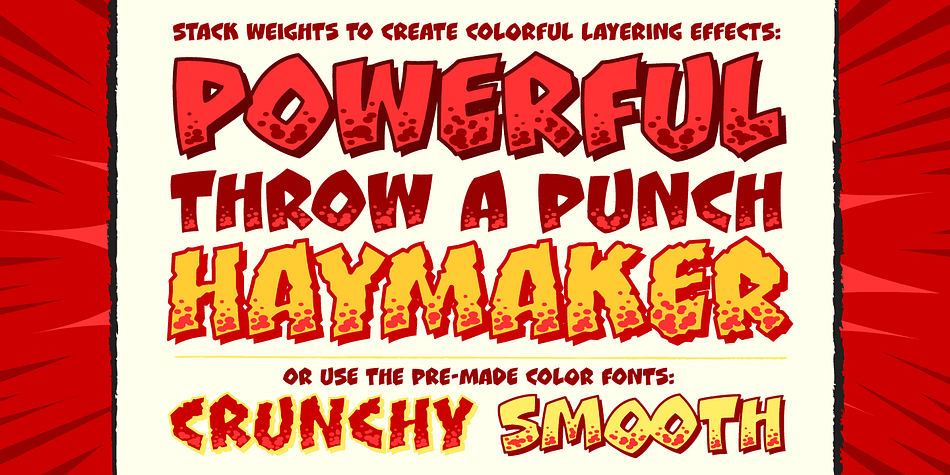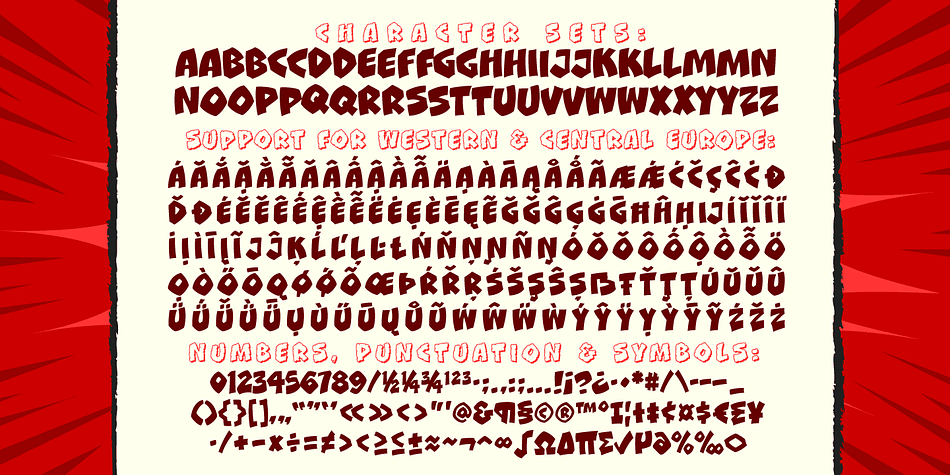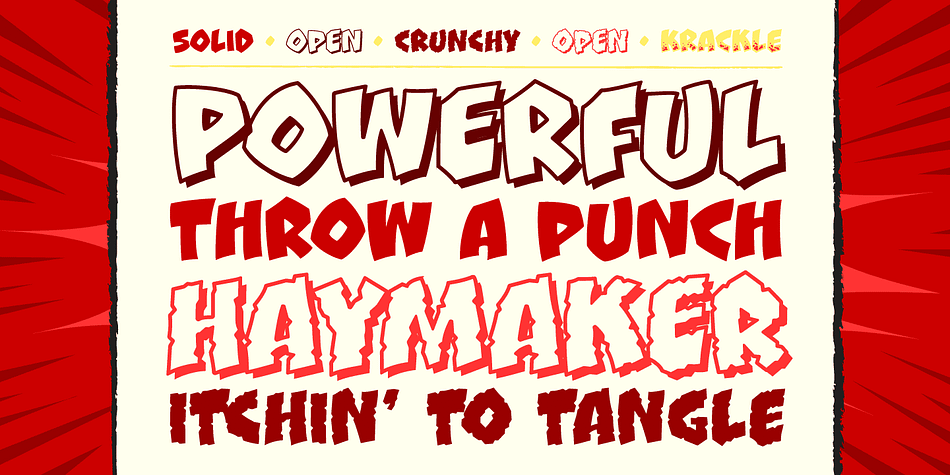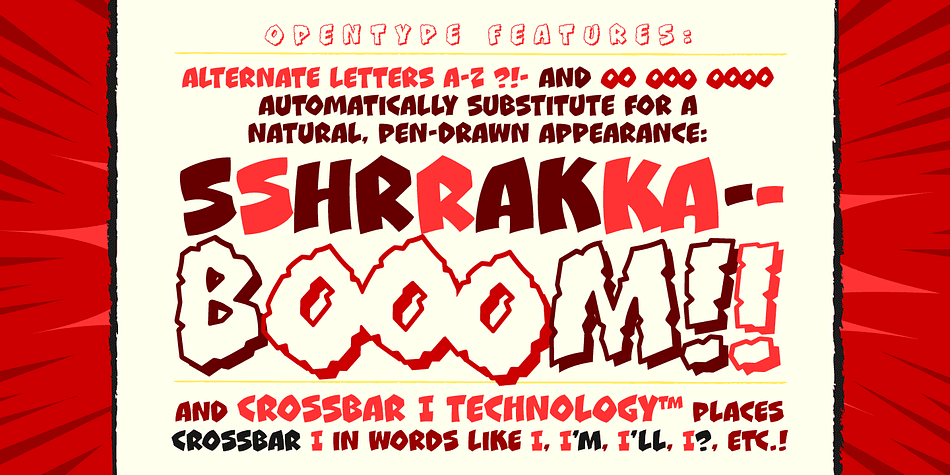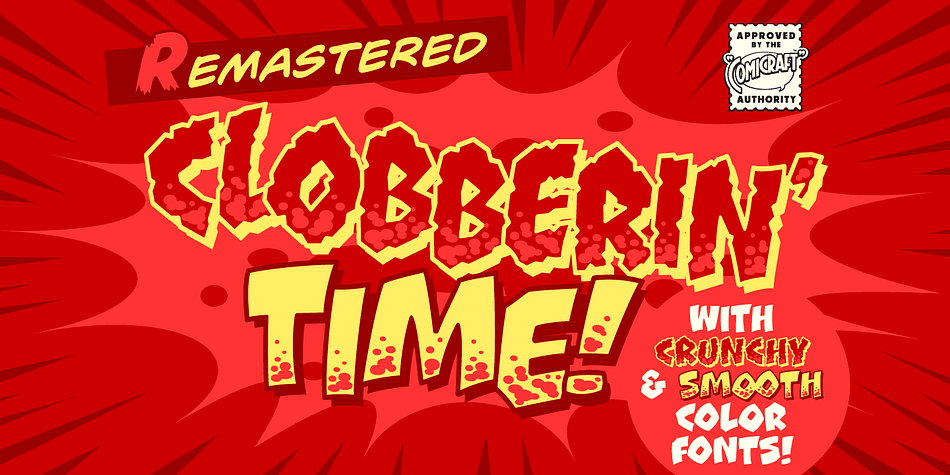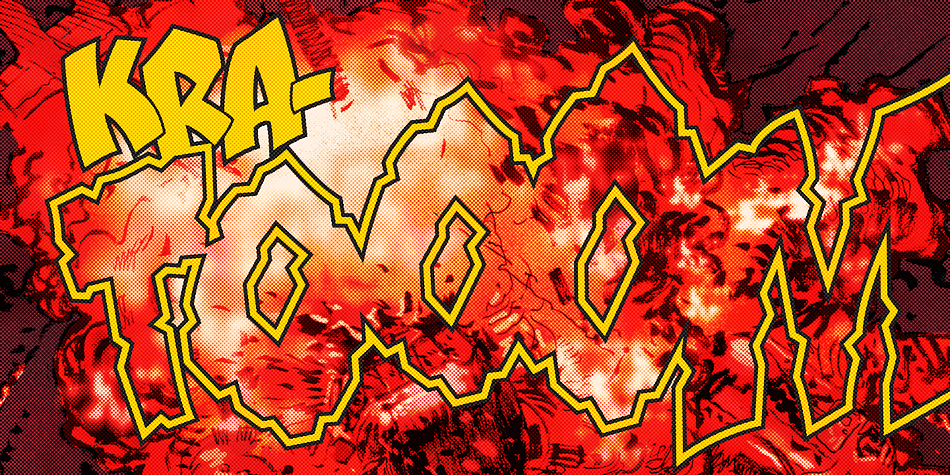
Designed by Richard Starkings, Clobberin Time is a comic, grunge and hand display font family. This typeface has two styles and was published by Comicraft.
Created by Richard Starkings for the Powerhouse Punches thrown by Marvel’s more muscular heroes, CLOBBERIN TIME is sure to bring the house down!
Two fonts (Crunchy & Smooth) with Western European international characters.